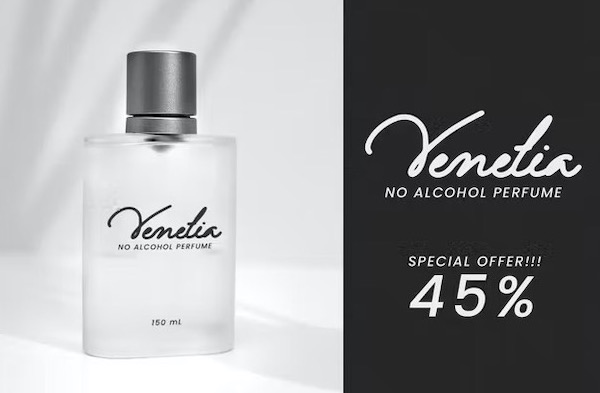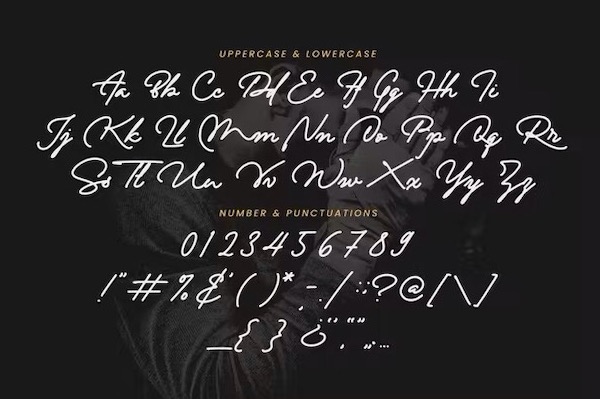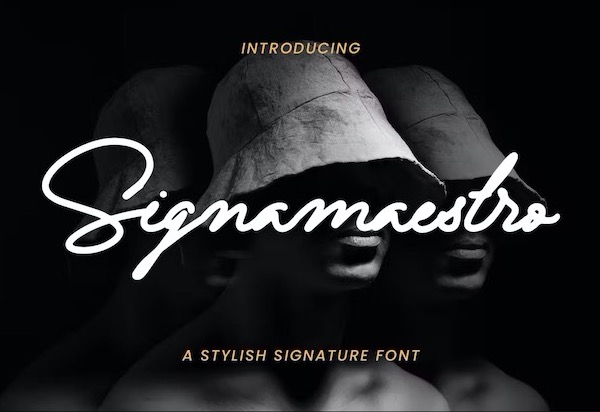
Signamaestro is a luxury and versatile Signature Script font that has a unique and classy look. This is a quality script font that is written in a casual and fast manner Signamaestro is perfect for many types of designs such as watermarks, product packaging, design, branding projects, homeware designs, quotes, and more.
Signamaestro Handwritten Script Font